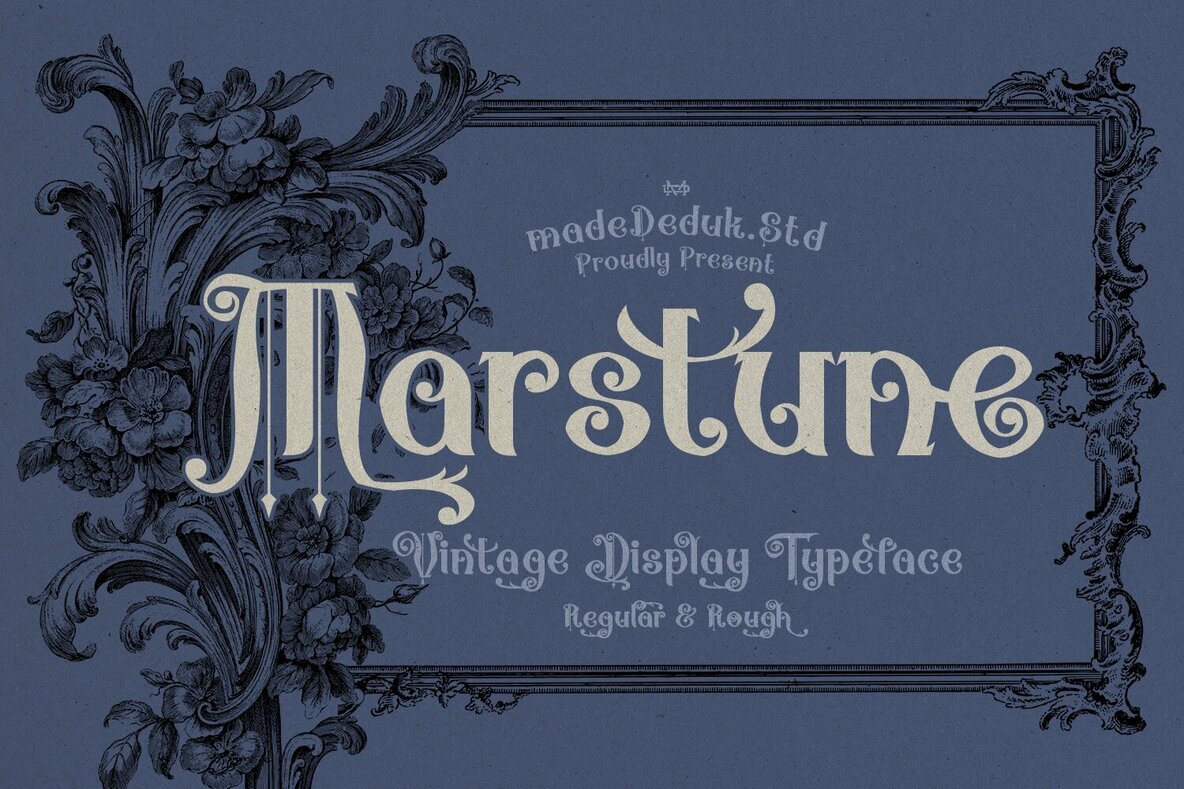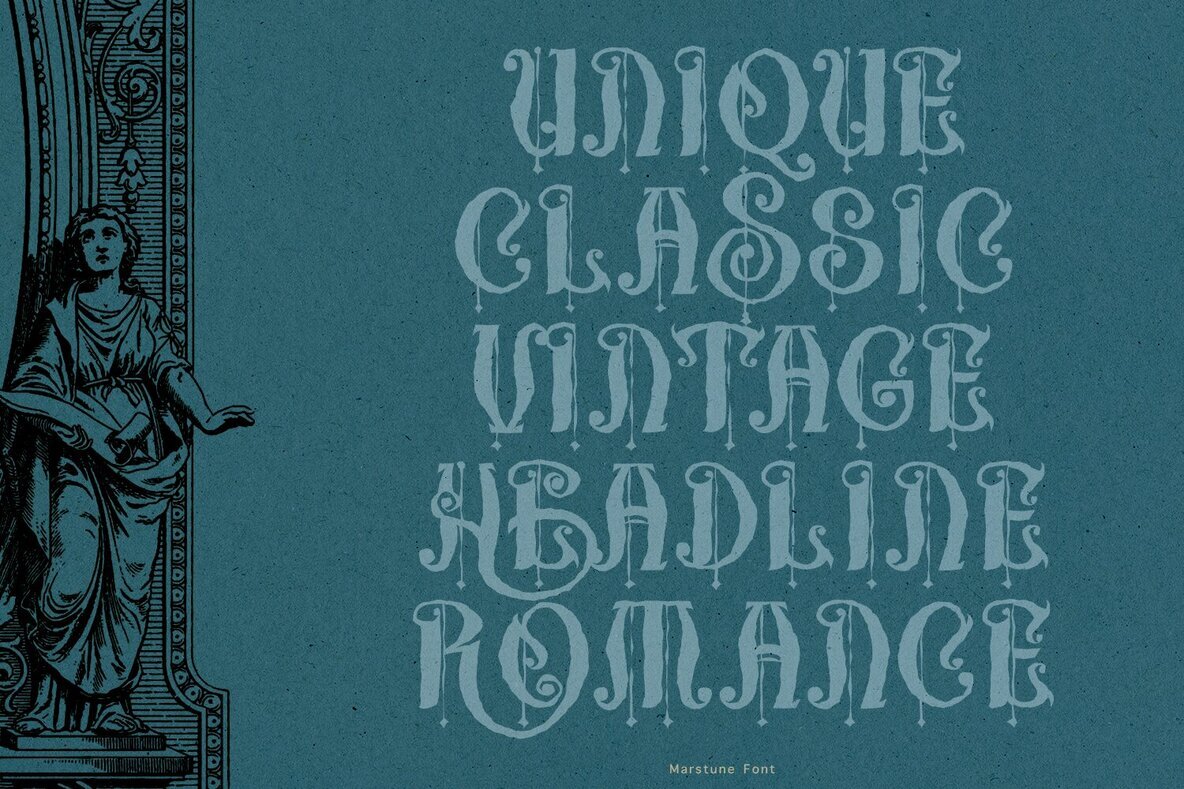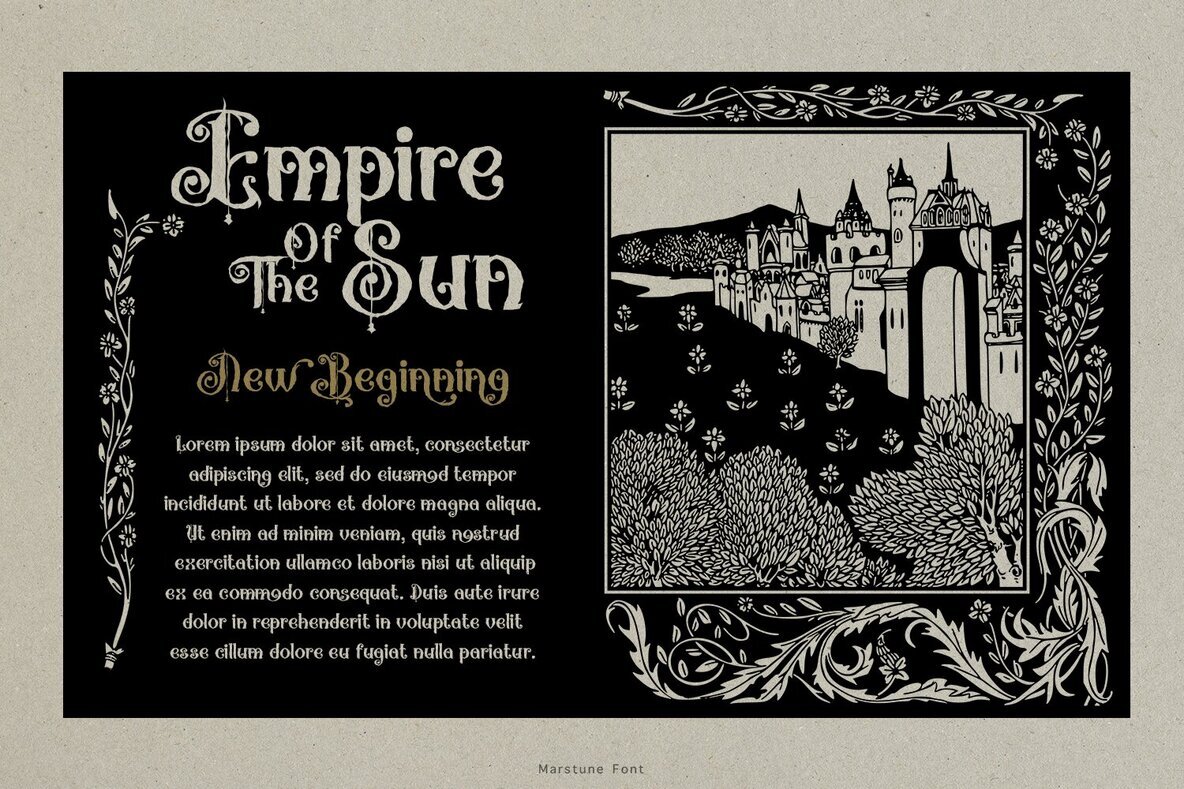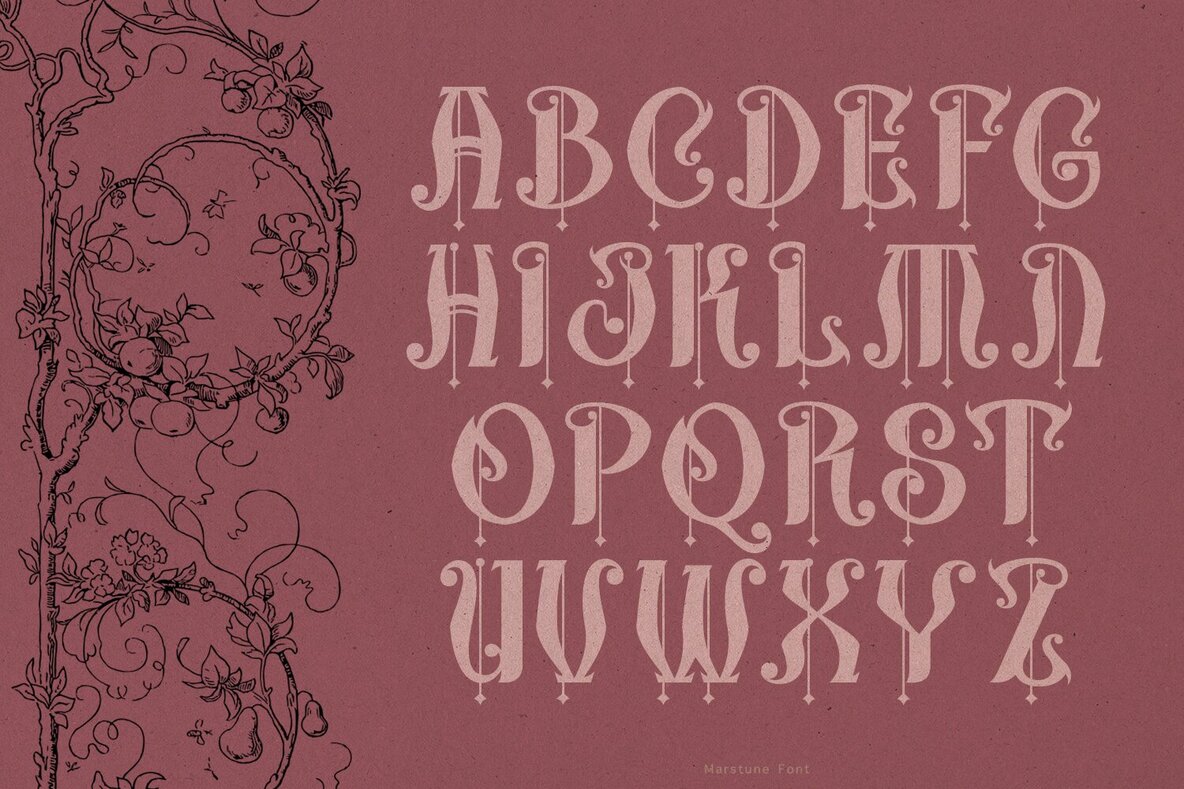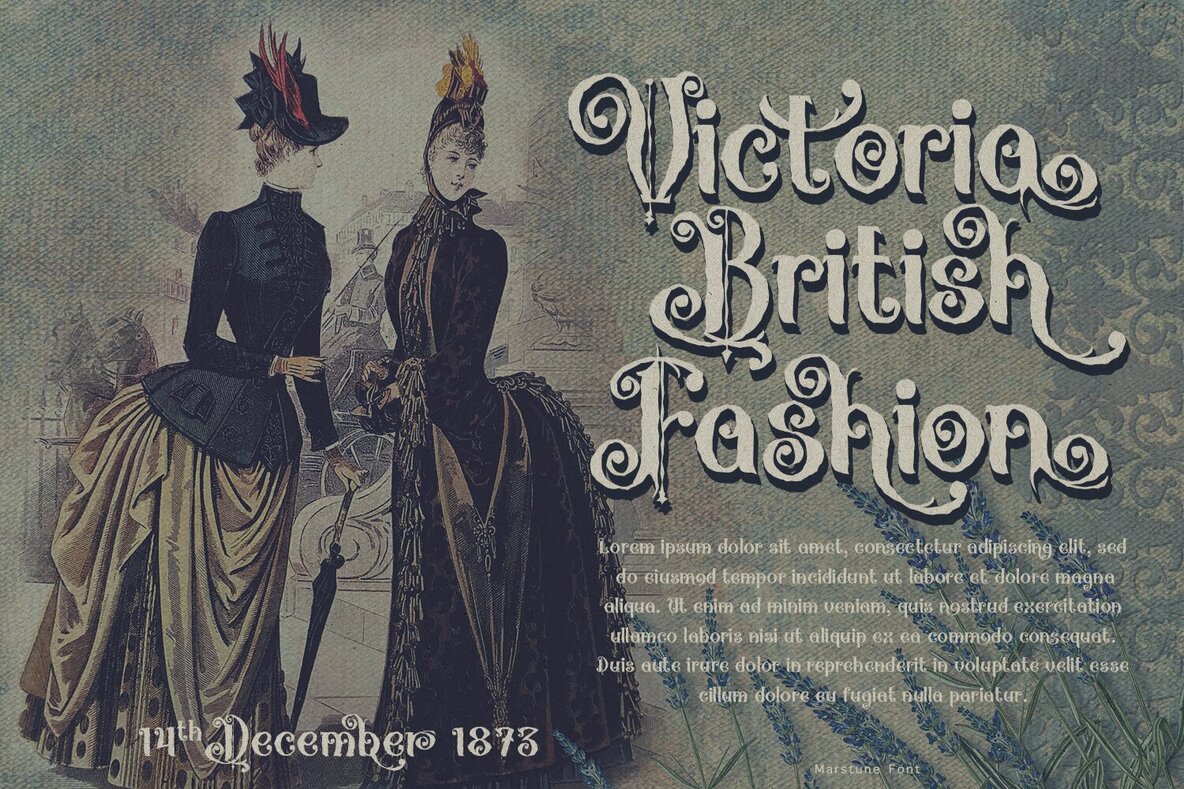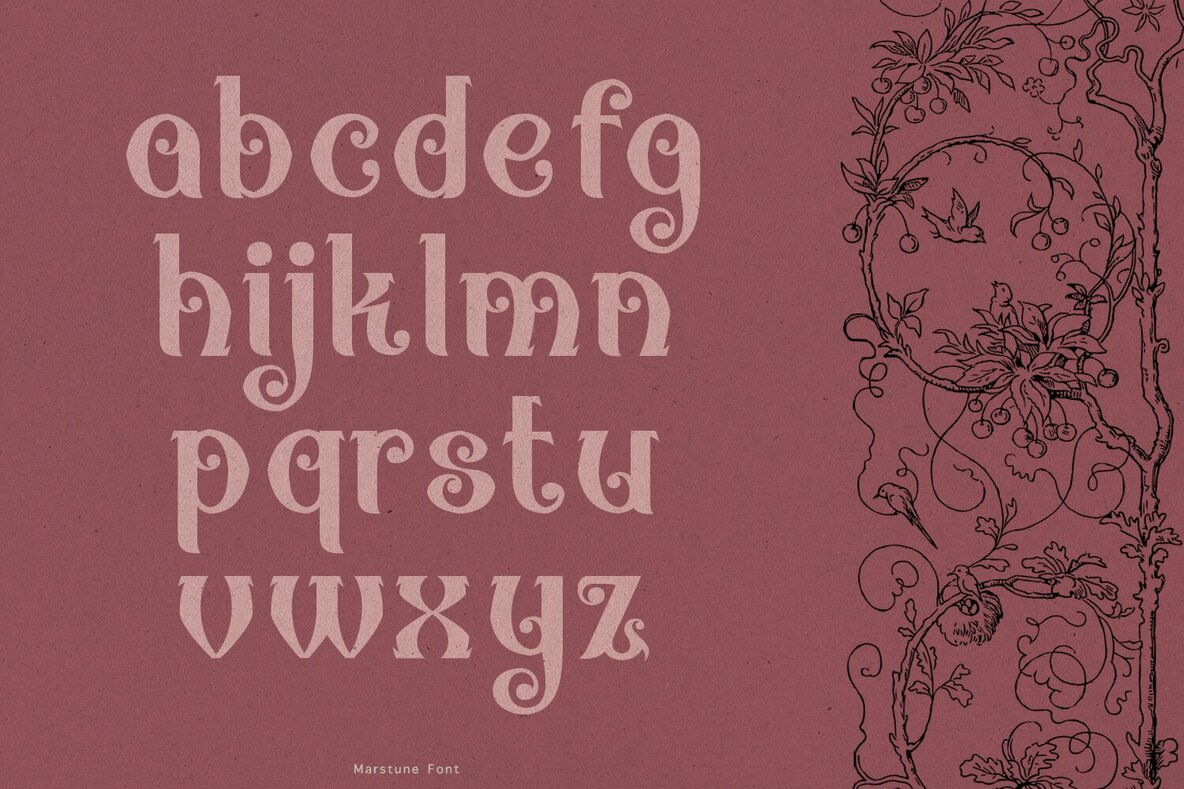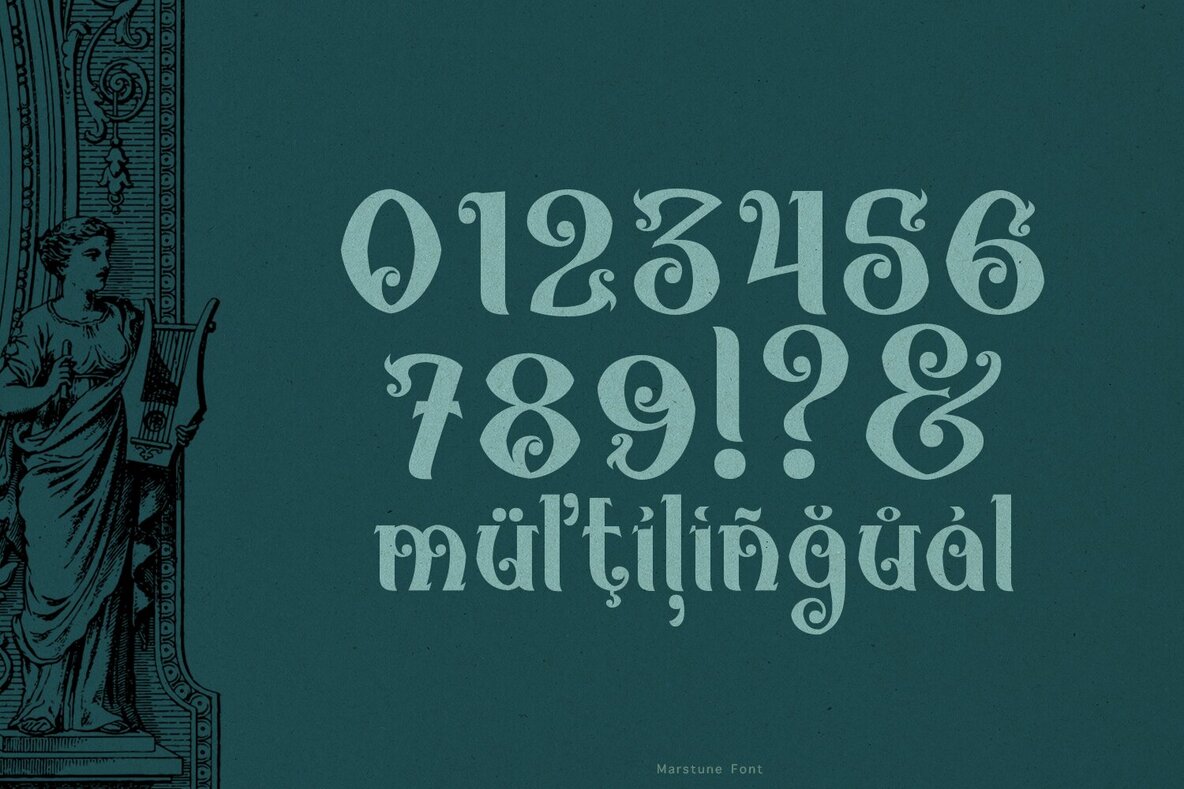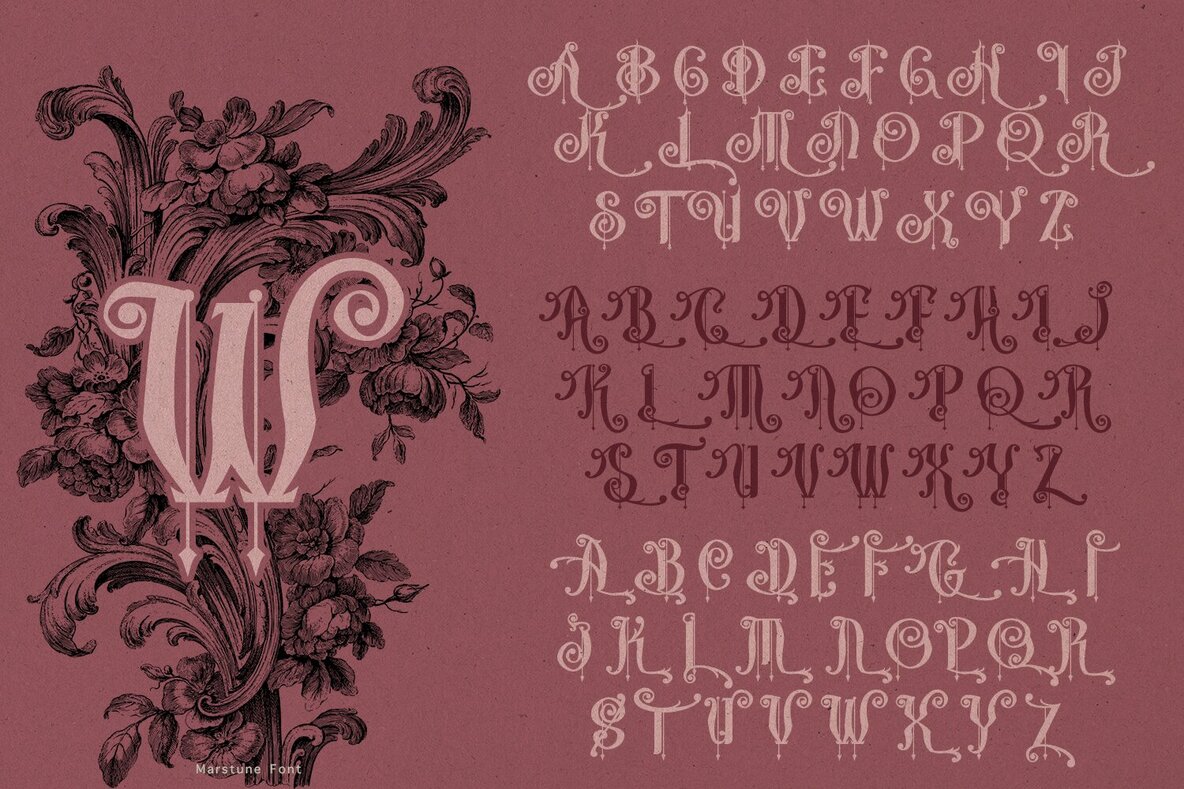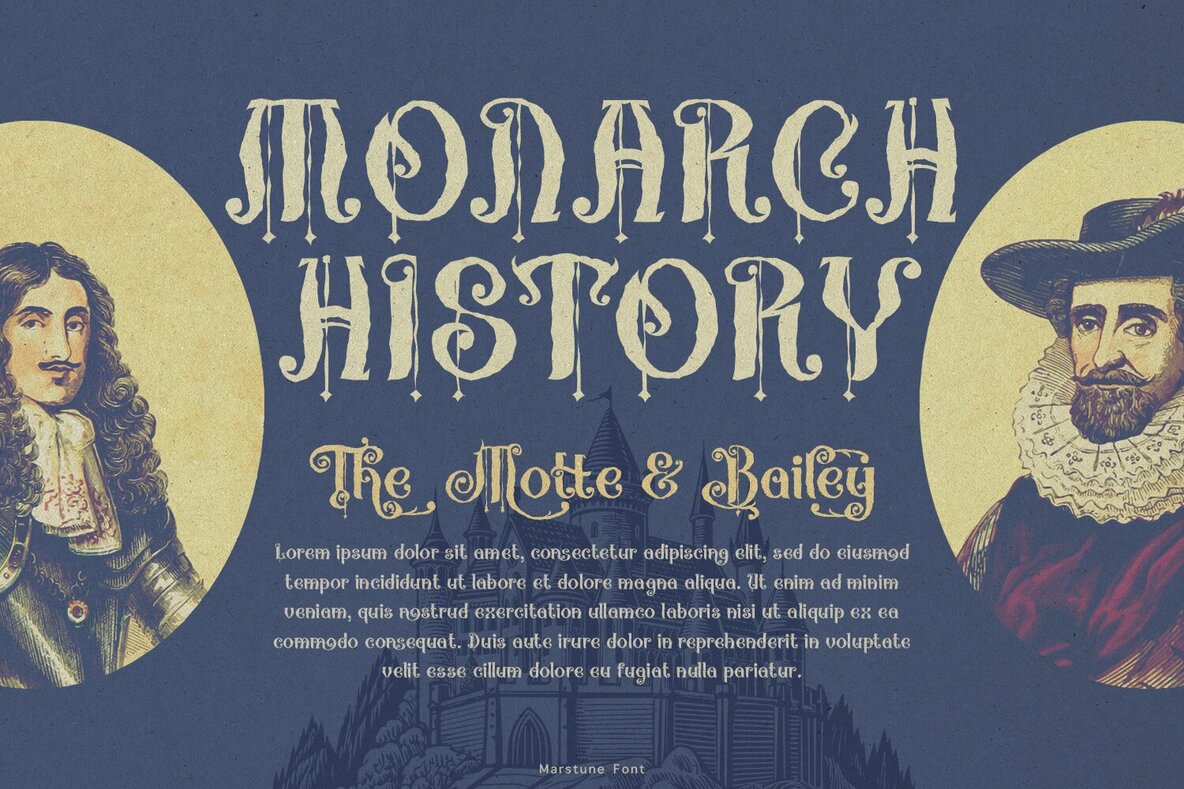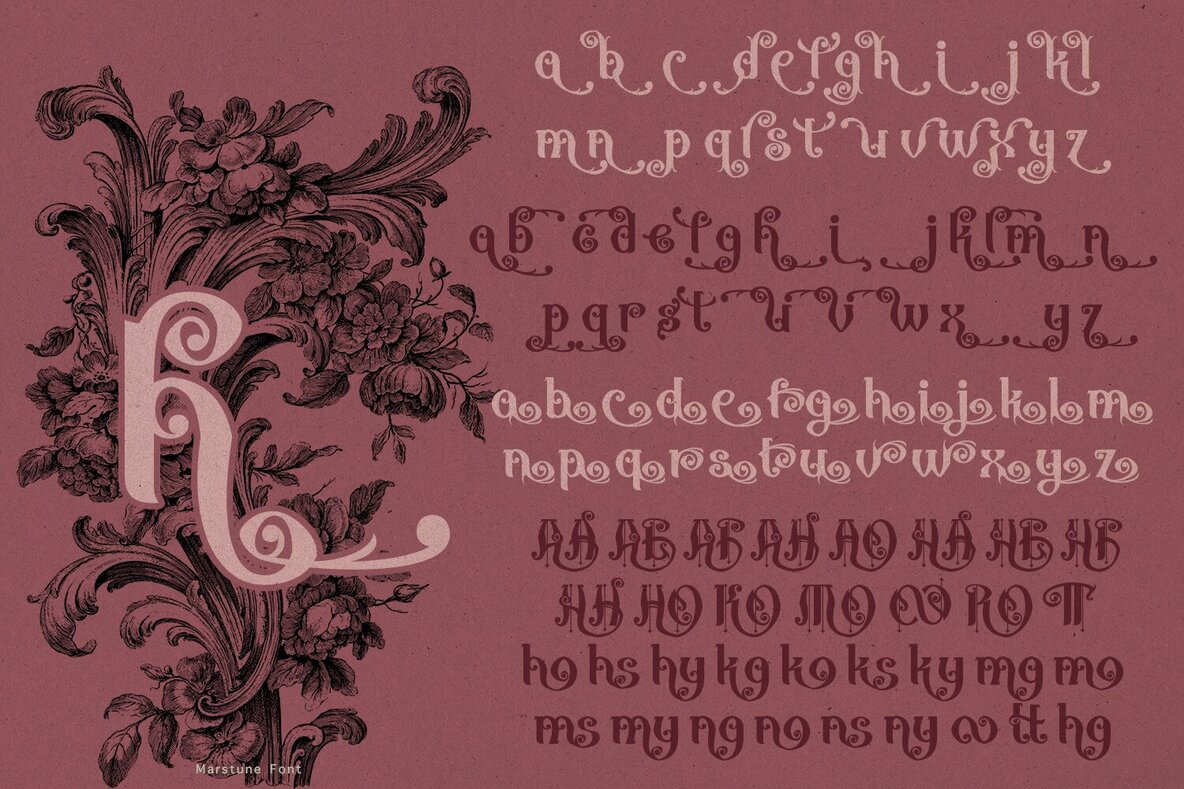
Marstune Font
Marstune offers a distinct display font with roots in early 1900s typography, lending a refined, vintage feel to your designs. Its robust, classic letterforms add gravity and visual strength, making it a reliable choice for both digital and print contexts. The font’s bold presence works well when you want your message to stand out with timeless appeal. The enduring style of Marstune ensures your work carries a sense of history and sophistication, providing just the right balance of elegance and impact.Vintage Character for Classic Projects